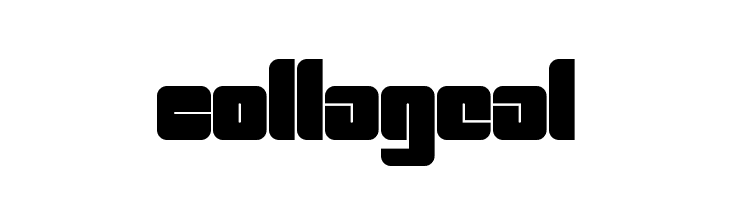
A bold, geometric font with a futuristic, modular design.
A bold, geometric font with a modern and structured design.
A bold, geometric font with rounded edges and a modern style.